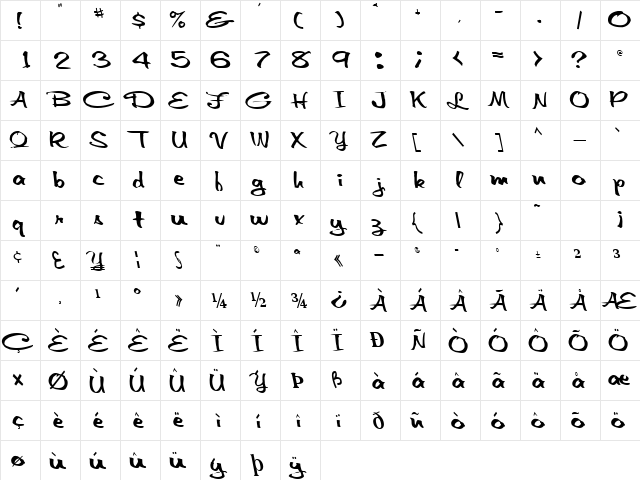
Double Regular
Design Context for Double Typeface
Double is a composed and adaptable typeface that performs quietly and consistently across a wide range of design contexts.